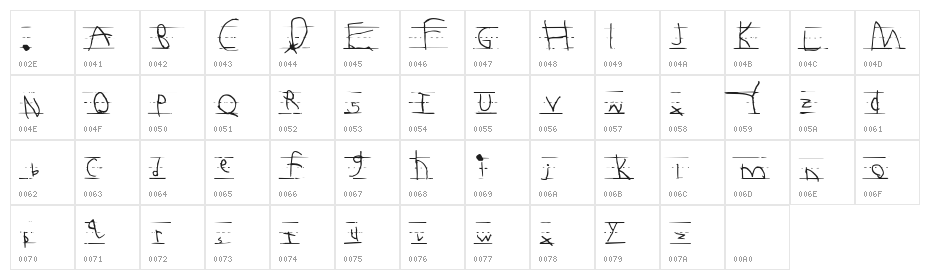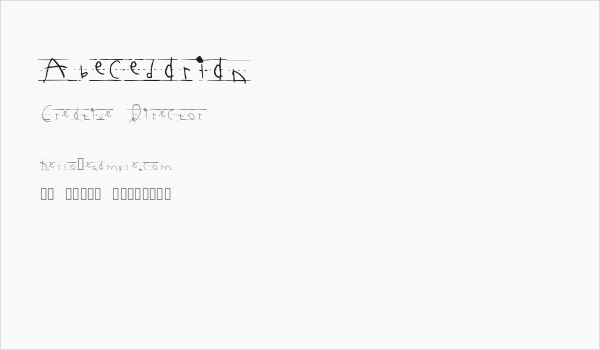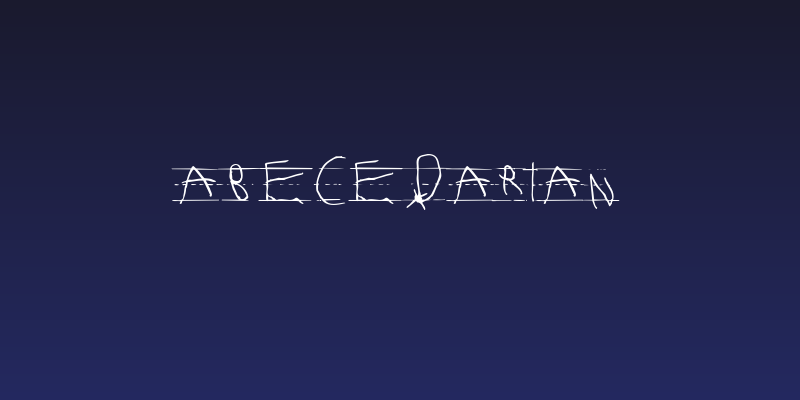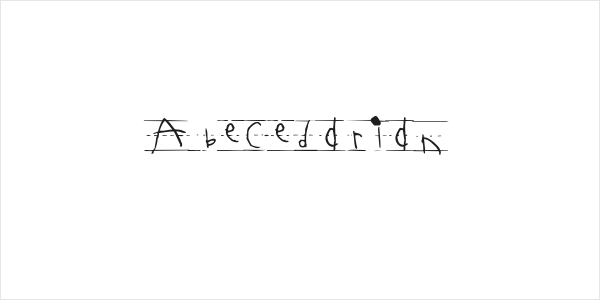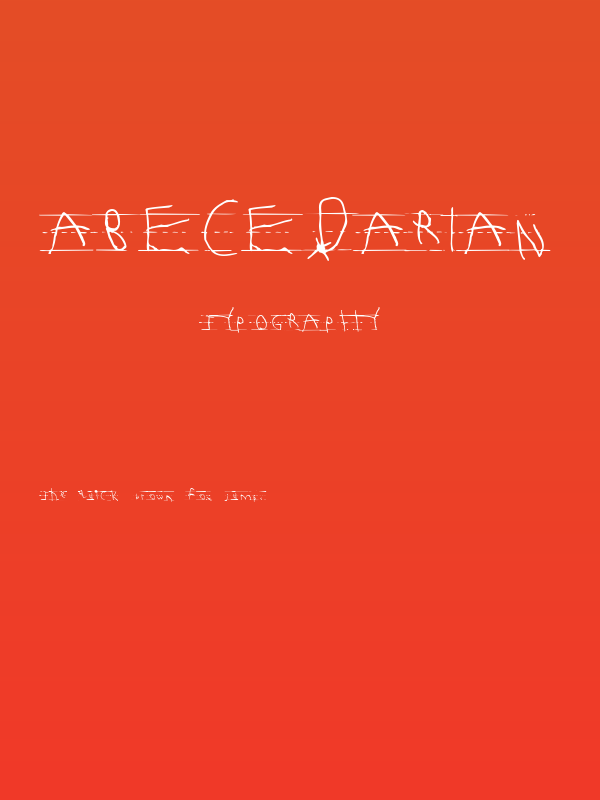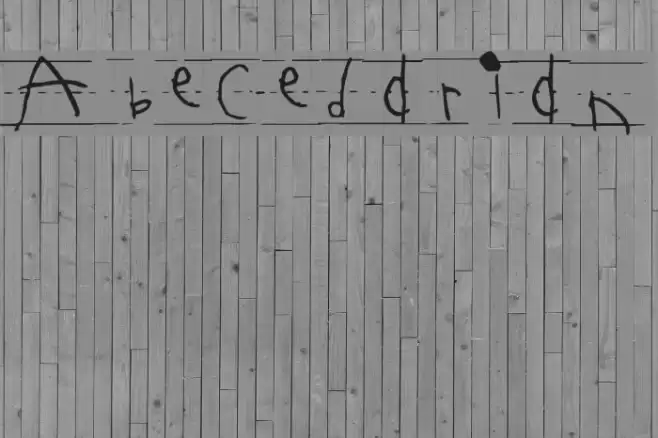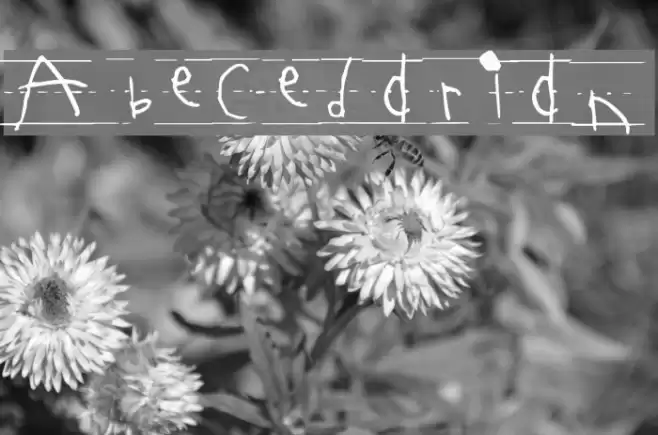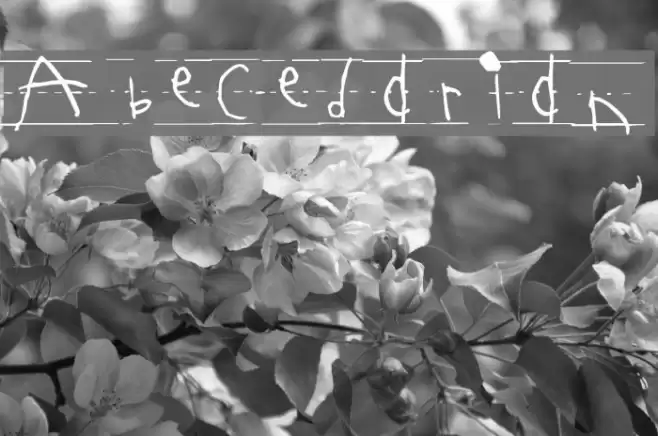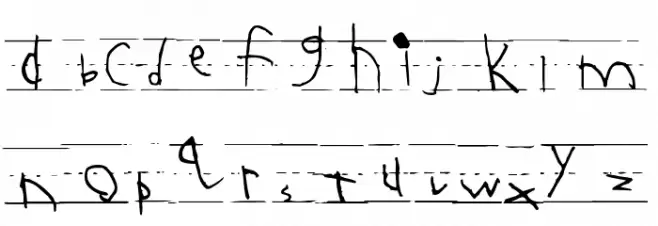
Abecedarian Font
| Style général | Playful, Whimsical |
| Cas d'utilisation | Children's books, Educational materials, Creative projects |
| Projets proposés | Ideal for children's books, educational materials, playful branding, and creative projects that require a whimsical touch. |